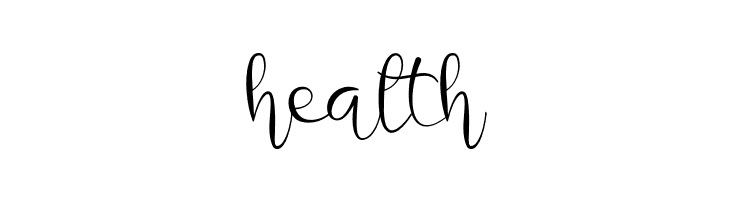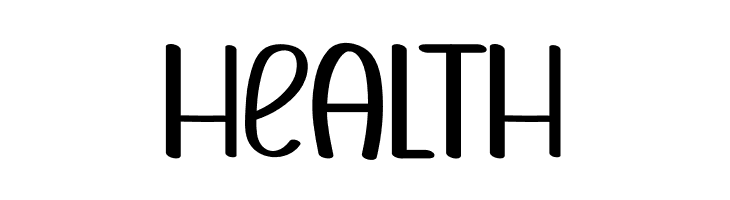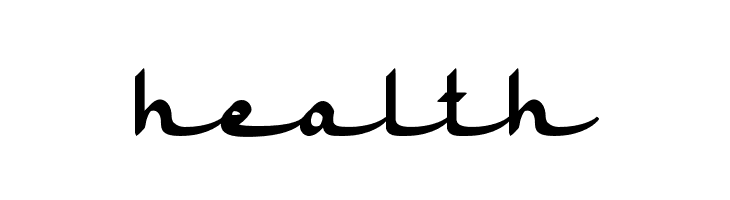
A lively, expressive handwritten font with fluid, dynamic strokes.
A bold, angular font with sharp lines and dramatic serifs.
A bold, cursive font with elegant, flowing lines and a sophisticated style.
A playful, bold font with rounded, cartoonish letterforms.
A playful and whimsical font with bold, rounded letterforms and creative flair.
A whimsical and flowing script font with elegant curves and playful swashes.
An elegant, flowing script font with smooth, cursive letterforms.
A playful, rounded font with a friendly and whimsical style.
An elegant, flowing script font with a calligraphic touch.
A bold, expressive handwritten font with dynamic strokes and a playful style.